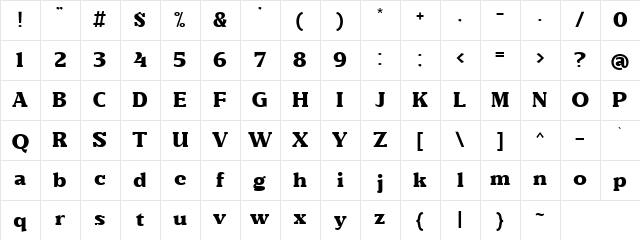
DEMO Bountyman Regular
Foundry: Letterhend Studio
Designer: Letterhend Studio
Design Context for DEMO Bountyman
DEMO Bountyman is a composed and adaptable typeface that performs quietly and consistently across a wide range of design contexts.